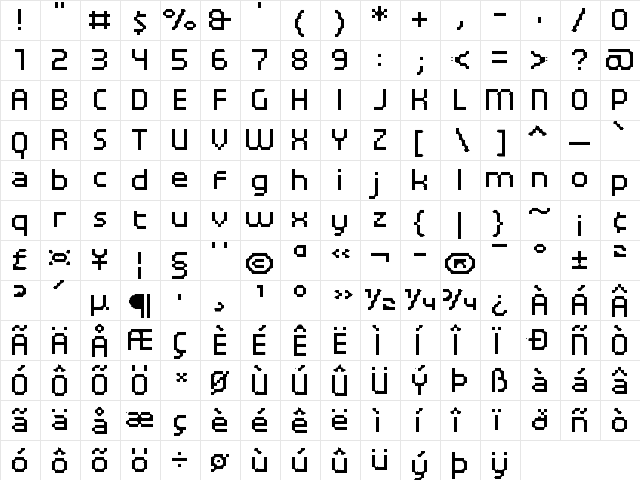
UF Elementar B 09.11.3 a Regular
| Foundry | Created by Gustavo Ferreiraand Ultrafonts.com. |
| Designer | Gustavo Ferreira |
Design Context for UF Elementar B 09.11.3 a Typeface
UF Elementar B 09.11.3 a takes a measured approach to typography — its balanced proportions and neutral character make it a reliable workhorse for both digital and print work.